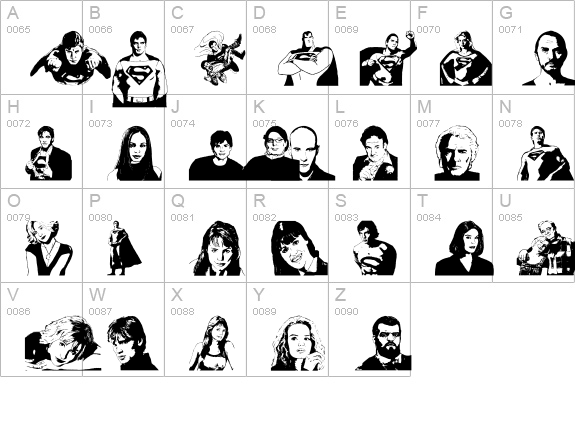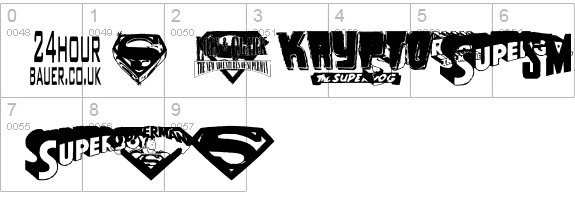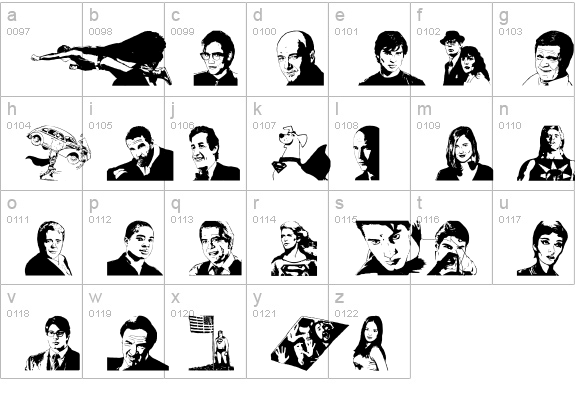
Superman Last son of Krypton Super Font Details
Introducing the magnificent Superman Last son of Krypton Super font, a true epitome of power, strength, and heroism. This remarkable typeface pays tribute to the iconic Superman, the last son of Krypton and the guardian of Metropolis. With its bold and dynamic design, the Superman Last son of Krypton Super font captures the essence of this legendary character, allowing you to bring a touch of heroism to your designs. This extraordinary font is imbued with an undeniable sense of might and invincibility. Each letter is meticulously crafted, exuding an aura of superhuman energy and determination. The sharp edges and sleek curves of the characters represent Superman's unwavering resolve to protect the innocent and fight for justice. But what sets the Superman Last son of Krypton Super font apart is its availability for free download at FontsMarket.com. Yes, you read that right – this exceptional font can be yours without any cost. Whether you're a graphic designer, a comic book enthusiast, or simply someone who appreciates the iconic Superman, this font is a must-have addition to your collection. Utilize the Superman Last son of Krypton Super font in various creative projects, such as logos, posters, comic books, merchandise, or any design that requires a touch of superheroic flair. Its versatility allows you to convey a sense of power, courage, and determination, making it perfect for any project that needs to make a bold statement. Don't miss out on this incredible opportunity to download the Superman Last son of Krypton Super font for free at FontsMarket.com. Unleash your inner superhero and let your designs soar to new heights with this remarkable typeface. Embrace the power of Superman and leave a lasting impression on your audience.